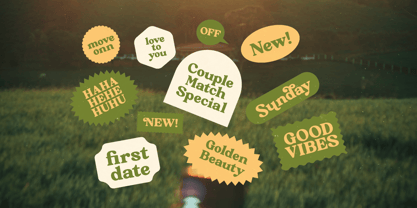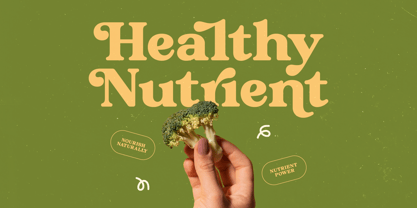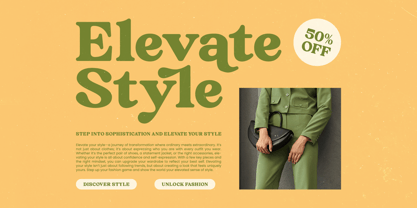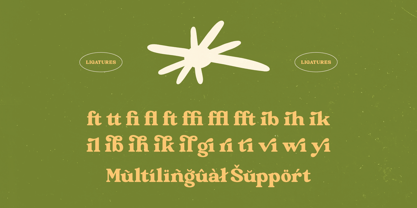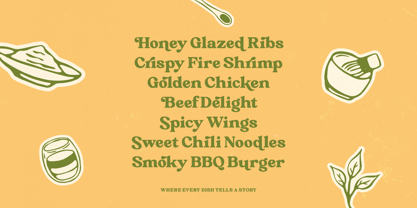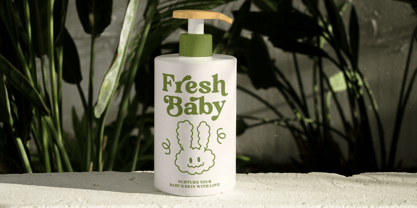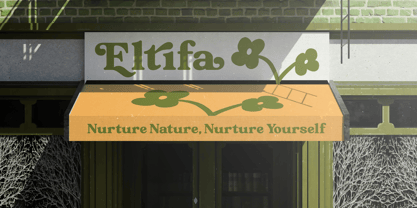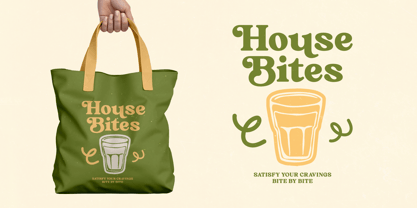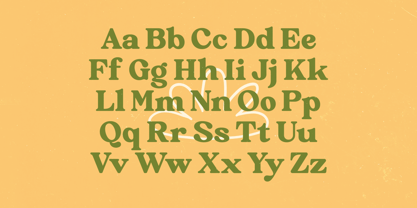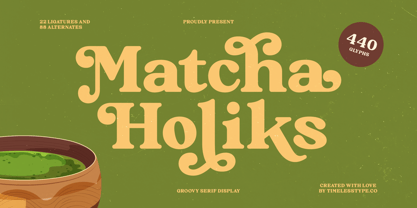
Matcha Holiks
by Timelesstype Studio
The Matcha Holiks Font Family was designed by Heru Utama Putra and published by Timelesstype Studio. Matcha Holiks contains 2 styles and family package options. More about this family
Matcha Holiks - Groovy Serif Display , from Timelesstype , Suitable for any projects such as: logos, branding projects, homeware designs, product packaging, mugs, quotes, posters, shopping bags, t-shirts, book covers, name card, invitation cards, greeting cards, label, photography, watermark, special events, and all your other luxury and beautiful projects that need a Luxury Serif taste.